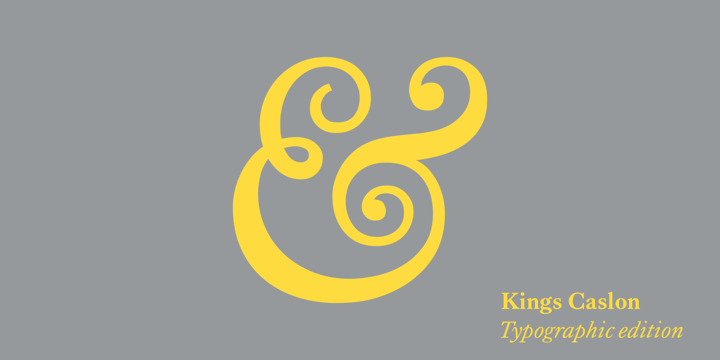
Our King’s Caslon is a contemporary interpretation of a classic, based on samples found in old specimen books. This font family is suitable for all types of design and identity projects which require typographic sophistication. Distinct display and text variations emphasize our commitment to typographic finesse. The fonts are designed to work with programs that support OpenType features. The display version differs dramatically from the text type. While the former is designed to attract and charm, the latter is all about functionality. King’s Caslon Display has an extrovert authority that is signified by high contrast between the strokes. King’s Caslon Text is the quiet cousin that will perform when you need to read page after page. Whilst each font knows its place, together they are an unbeatable team. The Typographic Edition has extended OpenType features beyond those of the Standard Edition, which is also available. Extra benefits included in the Typographic Edition are an extended character set with more ligatures, Small Caps and non-lining numerals.